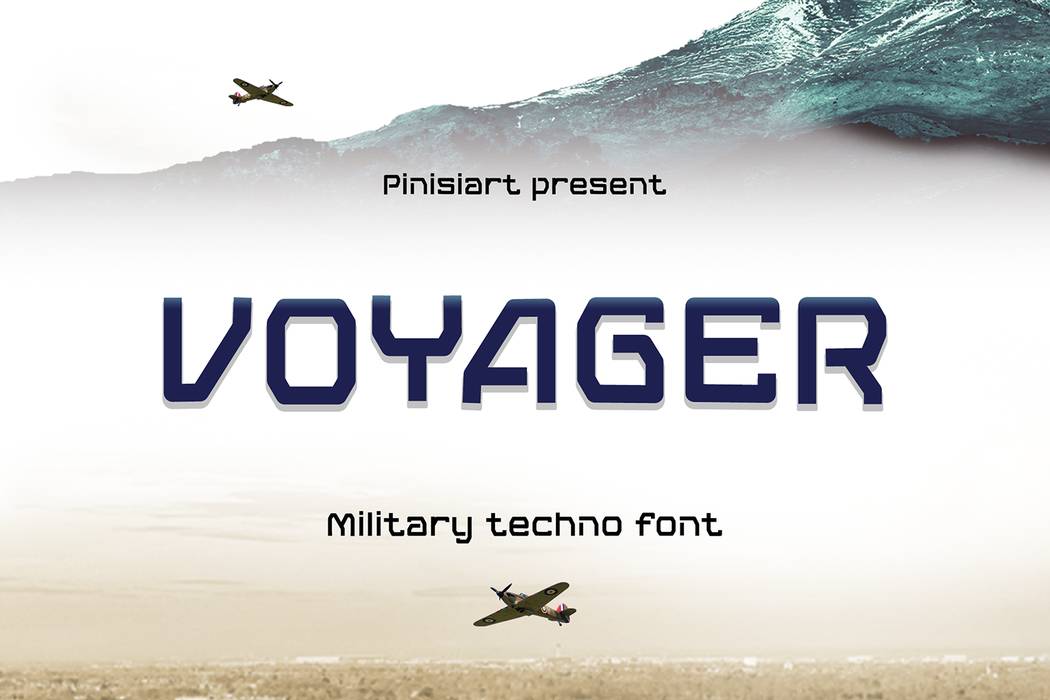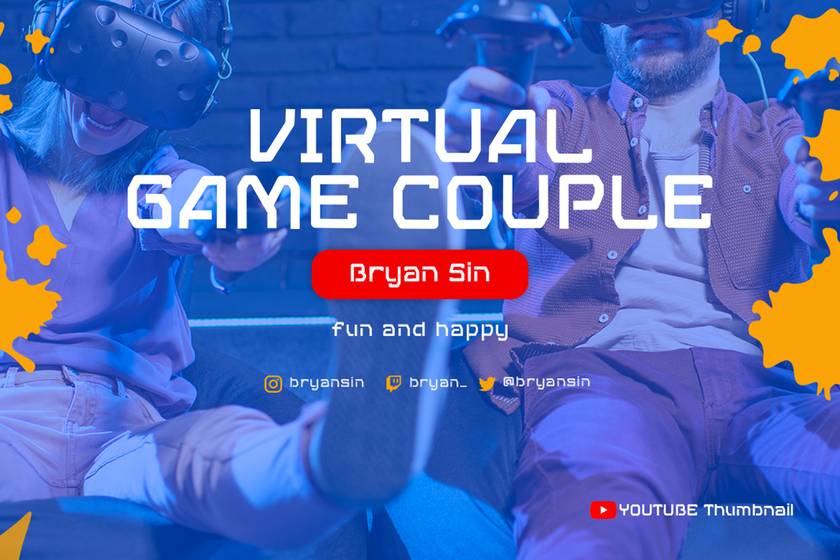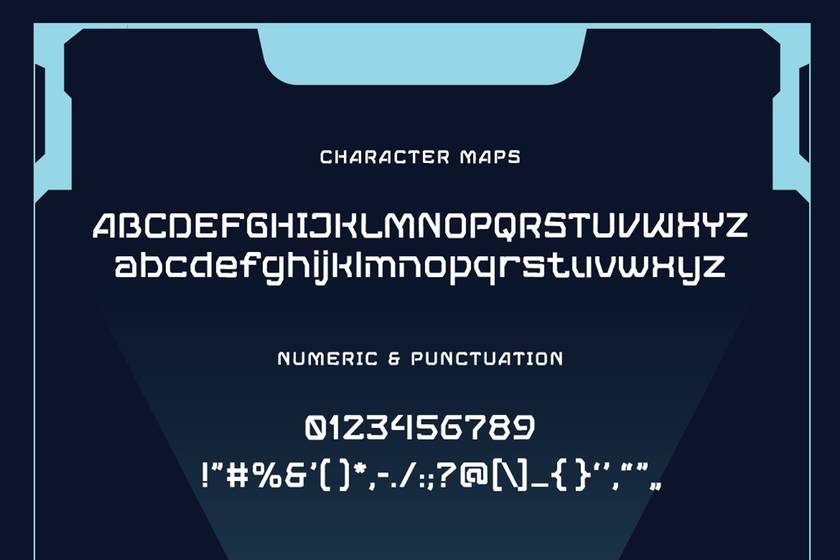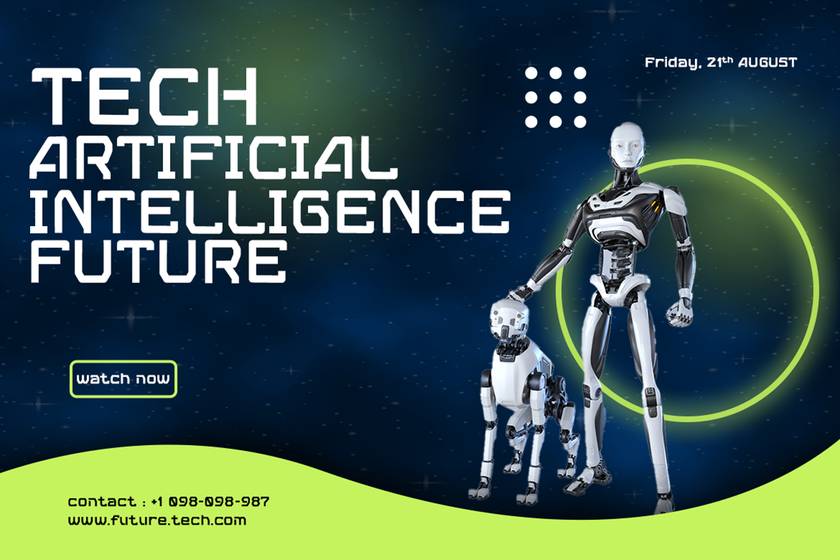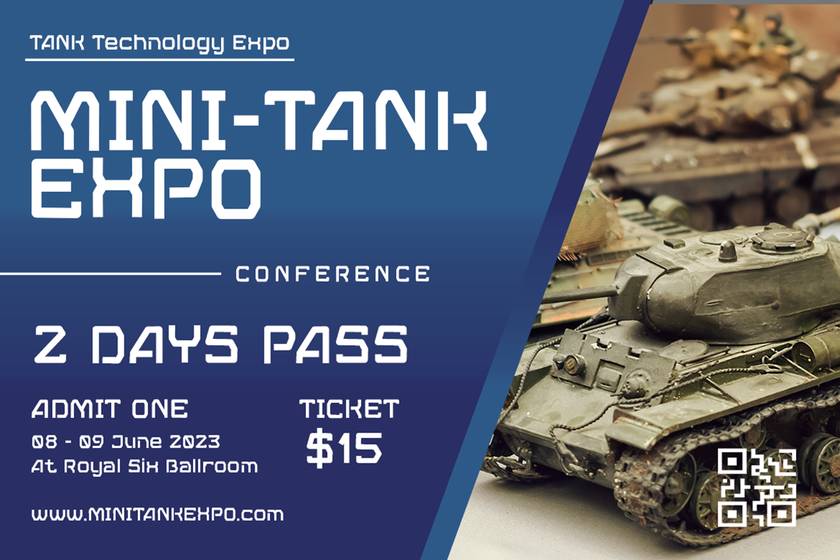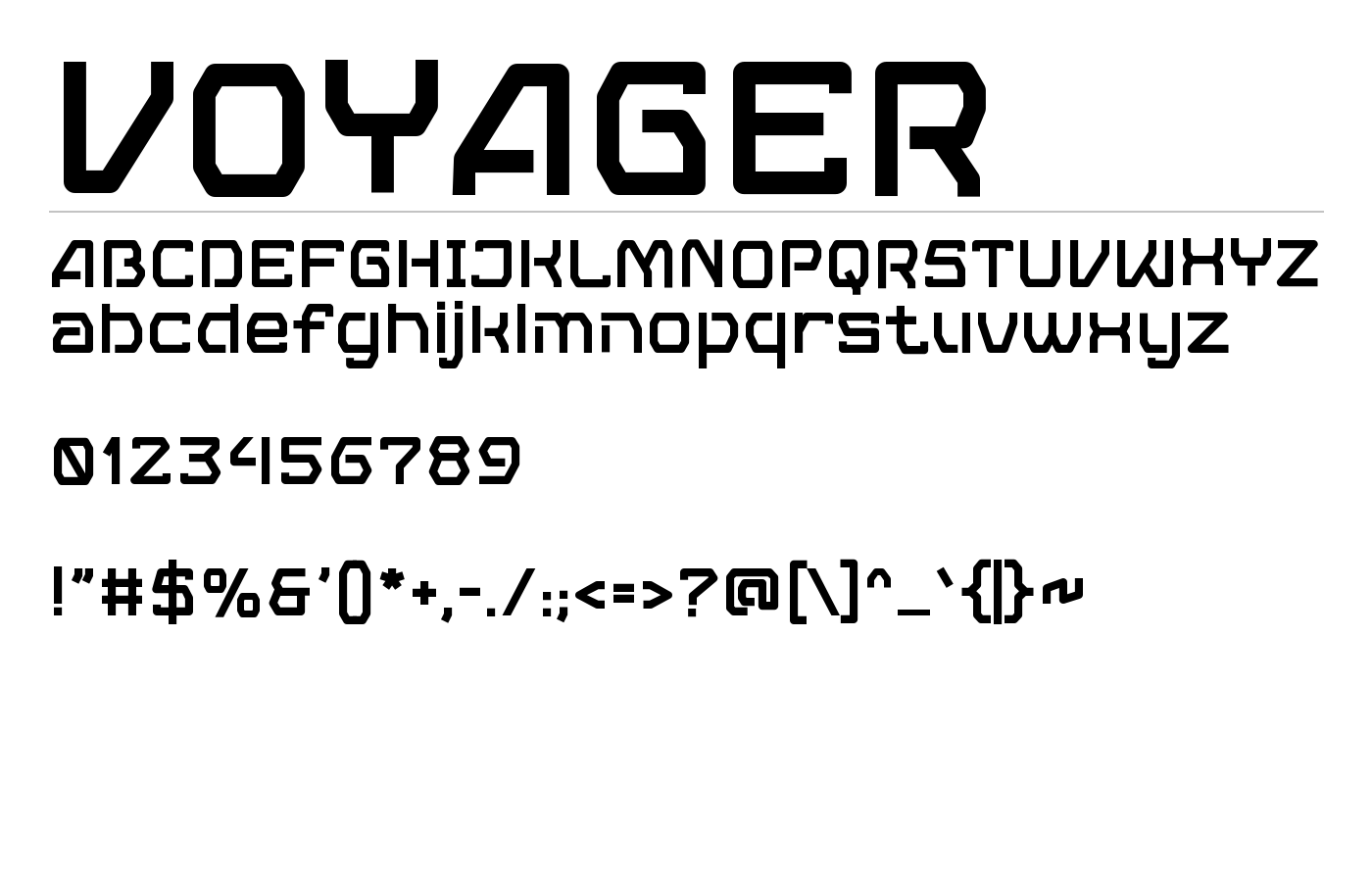
Voyager is a futuristic sans serif font characterized by its geometric, angular letterforms and consistent medium weight that convey a tech-savvy, modern feel. The font’s squared edges and distinct, slightly condensed shapes give it a strong digital and industrial personality, making it ideal for projects related to technology, science fiction, or innovative branding. Its clear readability and unique style work well in headlines, logos, and digital interfaces where a bold, contemporary look is desired.
Voyager Font
About Voyager Font